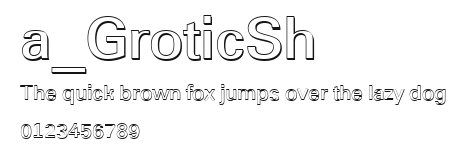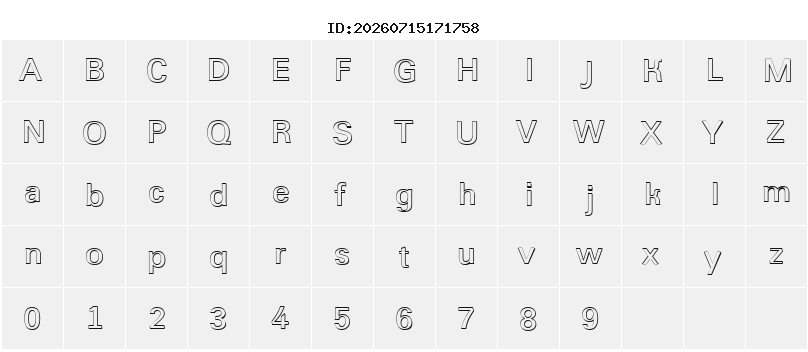
• Font Name: a_GroticSh
• Font ID: a_GroticSh Bold
• Full Font Name: a_GroticSh Bold
About a_GroticSh.ttf
a_GroticSh.ttf is a modern, elegant sans-serif font designed for ultimate readability and visual harmony. Perfect for branding, headlines, web design, and print materials.